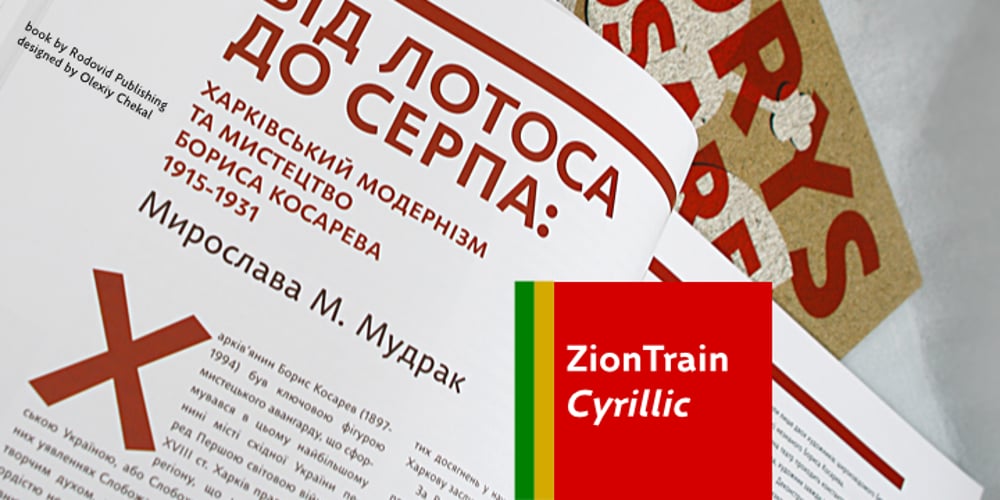
ZionTrain Cyrillic Font Family was designed by Andrij Shevchenko and published by AndrijType. ZionTrain Cyrillic contains 10 styles and family package options. Originally ZionTrain was built as a (probably first in Cyrillic!) navigation typeface for the Kharkiv identity project and Kharkiv subway and airport navigation systems. We wanted comprehensible, distinctive letterforms, that can help everybody on the way from Babylon to Zion. The project was used in Kharkiv promotion at homeland and abroad, but was rejected by the new government. As a corporate typeface it was used for a few cultural projects.